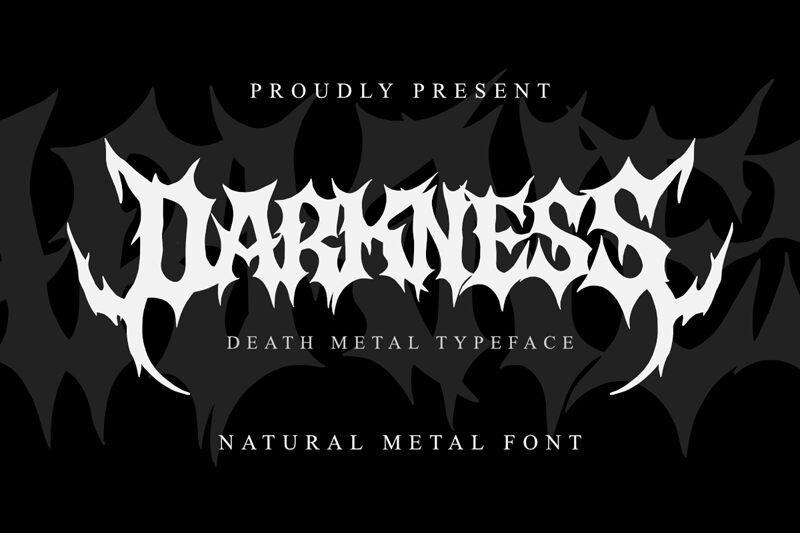
Darkness font by Muhammad Yafinuha is a free dark and intense gothic font design. Each character is sharp and intricately drawn to leave the best impact possible. Letters carry a highly aggressive energy in their shapes which makes them ideal for metal fans and punk rockers everywhere.
The rebellious style of this font allows for an interesting visual appearance for posters and apparel. Should you want to incorporate this font digitally, it has equal potential which can benefit titles and videos related to punk rock as well as digital marketing for edgy fashion lines or artists. Only the sky’s the limit when it comes to mixing and matching with this excellent visually strong free font.